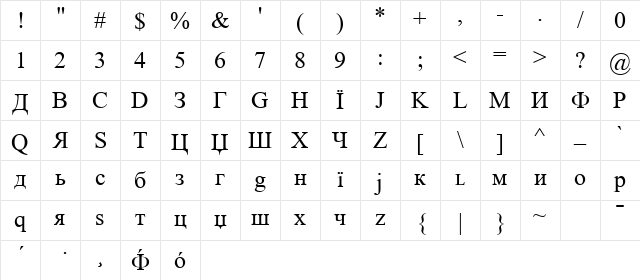
Complete Bukwa Normal glyph index. Displaying only characters natively supported by Bukwa Normal font.
Bukwa is a composed and adaptable typeface that performs quietly and consistently across a wide range of design contexts.